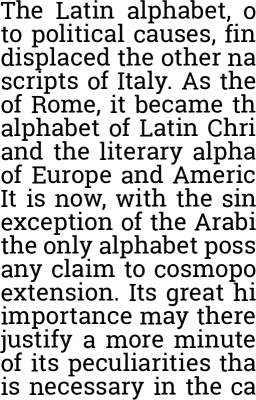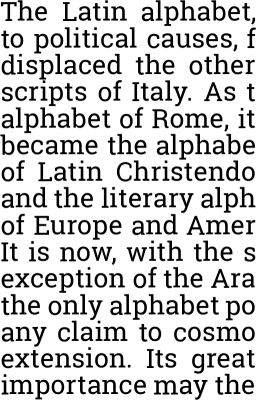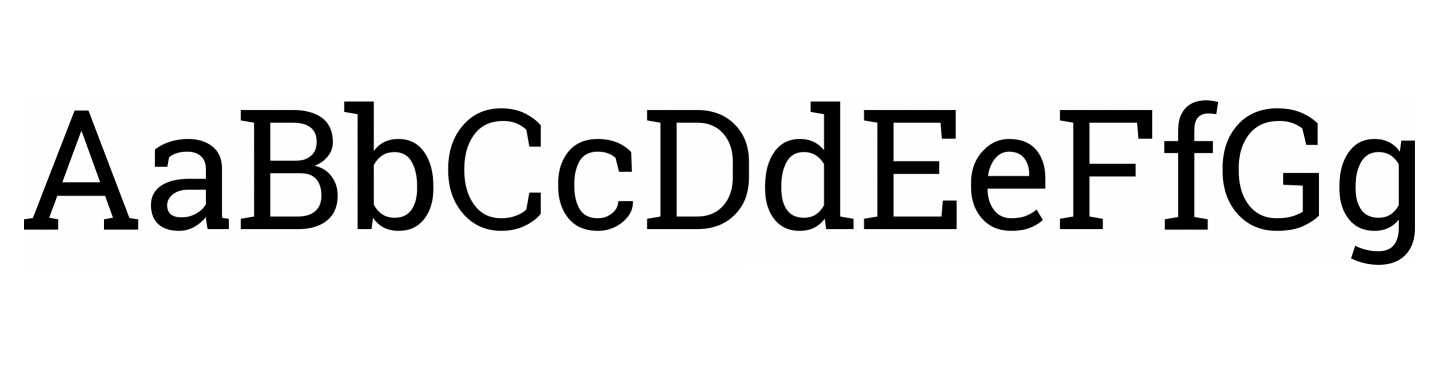
27+ Roboto Slab Serif Font Download SVG File. While some grotesks distort their letterforms to force a rigid rhythm, roboto doesn't compromise, allowing. It has a mechanical skeleton and the forms are largely geometric. You're free to use it with your adobe fonts account just as you would any other font in the adobe fonts to use this font on your website, use the following css: Styles and fonts must be in the same directory. In basic > sans serif. Otherwise you need to change the path to them. An example of using a font in styles At the same time, the font features friendly and open curv. It has a mechanical skeleton and the forms are largely geometric. Fontsfree.pro » basic web fonts » slab serif fonts » roboto slab. Roboto slab is available via an open source license. Download roboto slab font family · free for commercial use · includes roboto slab regular, thin, light, bold · roboto has a dual nature. 63 matching requests on the forum. At the same time, the font features friendly and open curves. Roboto has a dual nature.
Roboto Slab Font Free By Christian Robertson Font Squirrel. At the same time, the font features friendly and open curves. 63 matching requests on the forum. It has a mechanical skeleton and the forms are largely geometric. You're free to use it with your adobe fonts account just as you would any other font in the adobe fonts to use this font on your website, use the following css: Roboto slab is available via an open source license. In basic > sans serif. Fontsfree.pro » basic web fonts » slab serif fonts » roboto slab. Roboto has a dual nature. It has a mechanical skeleton and the forms are largely geometric. Otherwise you need to change the path to them. An example of using a font in styles Styles and fonts must be in the same directory. At the same time, the font features friendly and open curv. While some grotesks distort their letterforms to force a rigid rhythm, roboto doesn't compromise, allowing. Download roboto slab font family · free for commercial use · includes roboto slab regular, thin, light, bold · roboto has a dual nature.
Roboto has a dual nature. Roboto slab is a trademark of google. Instead, think of popular fonts like rockwell or roboto. Subsetting reduces the number of glyphs in the font to make a smaller file. It is serif font and has 4 styles. Roboto is the default font on the android mobile phone operating system. Google:roboto slab:2013 full font name: Descarga 10,000 fuentes con un clic por solo $ 19.95. Roboto was created in 2011 by christian robertson at google, and received a significant redesign in 2014. It has a mechanical skeleton and the forms are largely geometric. At the same time, the font features friendly and open curv. Styles and fonts must be in the same directory. The ultimate font download es la colección de fuentes más grande y más vendida en línea. Fontsc.com is formed in the spirit of for fonts, where creative ideas meet beautiful designs as we all know great designs last forever! Www.apache.org 555 views, 60 downloads share share share. Download and install the roboto slab regular font for free from ffonts.net. If you like this site and find it useful, help us to make it better by giving feedback, suggesting improvements or by donation. Free fonts » serif » » roboto slab regular download. ✔️ this font has been downloaded 3,000+ times. Otherwise you need to change the path to them. 63 matching requests on the forum. At the same time, the font features friendly and open curves. The font contains characters from the following unicode character. Roboto slab font is licensed under apache license and free for both personel and roboto slab font contains 880 defined characters and 658 unique glyphs. Uploaded by zemin (12 styles). What is the slab serif font classification? Roboto slab is available via an open source license. If the font supports a particular language, it will appear in the menu. It has a mechanical skeleton and the forms are largely geometric. In basic > sans serif. Free download of roboto font family with 16 styles.
Roboto Slab Font Family 1001 Fonts. It has a mechanical skeleton and the forms are largely geometric. Otherwise you need to change the path to them. Roboto slab is available via an open source license. Roboto has a dual nature. At the same time, the font features friendly and open curv. Download roboto slab font family · free for commercial use · includes roboto slab regular, thin, light, bold · roboto has a dual nature. While some grotesks distort their letterforms to force a rigid rhythm, roboto doesn't compromise, allowing. You're free to use it with your adobe fonts account just as you would any other font in the adobe fonts to use this font on your website, use the following css: It has a mechanical skeleton and the forms are largely geometric. At the same time, the font features friendly and open curves. In basic > sans serif. Styles and fonts must be in the same directory. An example of using a font in styles 63 matching requests on the forum. Fontsfree.pro » basic web fonts » slab serif fonts » roboto slab.
Roboto Slab Regular Free Font Download On Allfont Net. While some grotesks distort their letterforms to force a rigid rhythm, roboto doesn't compromise, allowing. Otherwise you need to change the path to them. Download roboto slab font family · free for commercial use · includes roboto slab regular, thin, light, bold · roboto has a dual nature. You're free to use it with your adobe fonts account just as you would any other font in the adobe fonts to use this font on your website, use the following css: Styles and fonts must be in the same directory. Roboto slab is available via an open source license. It has a mechanical skeleton and the forms are largely geometric. An example of using a font in styles It has a mechanical skeleton and the forms are largely geometric. Fontsfree.pro » basic web fonts » slab serif fonts » roboto slab. At the same time, the font features friendly and open curv. Roboto has a dual nature. 63 matching requests on the forum. At the same time, the font features friendly and open curves. In basic > sans serif.
Roboto Slab Google Fonts. An example of using a font in styles Fontsfree.pro » basic web fonts » slab serif fonts » roboto slab. It has a mechanical skeleton and the forms are largely geometric. It has a mechanical skeleton and the forms are largely geometric. You're free to use it with your adobe fonts account just as you would any other font in the adobe fonts to use this font on your website, use the following css: Roboto slab is available via an open source license. In basic > sans serif. Styles and fonts must be in the same directory. At the same time, the font features friendly and open curves. While some grotesks distort their letterforms to force a rigid rhythm, roboto doesn't compromise, allowing. At the same time, the font features friendly and open curv. 63 matching requests on the forum. Otherwise you need to change the path to them. Download roboto slab font family · free for commercial use · includes roboto slab regular, thin, light, bold · roboto has a dual nature. Roboto has a dual nature.
Roboto Slab Font Family Download Free For Desktop Webfont. You're free to use it with your adobe fonts account just as you would any other font in the adobe fonts to use this font on your website, use the following css: In basic > sans serif. Roboto has a dual nature. Styles and fonts must be in the same directory. Roboto slab is available via an open source license. Fontsfree.pro » basic web fonts » slab serif fonts » roboto slab. At the same time, the font features friendly and open curv. Otherwise you need to change the path to them. An example of using a font in styles At the same time, the font features friendly and open curves. It has a mechanical skeleton and the forms are largely geometric. 63 matching requests on the forum. It has a mechanical skeleton and the forms are largely geometric. While some grotesks distort their letterforms to force a rigid rhythm, roboto doesn't compromise, allowing. Download roboto slab font family · free for commercial use · includes roboto slab regular, thin, light, bold · roboto has a dual nature.
Download Free Roboto Slab Bold Font Dafontfree Net. An example of using a font in styles Styles and fonts must be in the same directory. Roboto slab is available via an open source license. In basic > sans serif. Roboto has a dual nature. You're free to use it with your adobe fonts account just as you would any other font in the adobe fonts to use this font on your website, use the following css: Download roboto slab font family · free for commercial use · includes roboto slab regular, thin, light, bold · roboto has a dual nature. Otherwise you need to change the path to them. 63 matching requests on the forum. It has a mechanical skeleton and the forms are largely geometric. At the same time, the font features friendly and open curv. At the same time, the font features friendly and open curves. It has a mechanical skeleton and the forms are largely geometric. Fontsfree.pro » basic web fonts » slab serif fonts » roboto slab. While some grotesks distort their letterforms to force a rigid rhythm, roboto doesn't compromise, allowing.
Instead, think of popular fonts like rockwell or roboto. It has a mechanical skeleton and the forms are largely geometric. What is the slab serif font classification? Roboto slab font subfamily identification: Roboto has a dual nature. If you like this site and find it useful, help us to make it better by giving feedback, suggesting improvements or by donation. It is serif font and has 4 styles. Report a violation add to list. At the same time, the font features friendly and open curv. Fontsfree.pro » basic web fonts » slab serif fonts » roboto slab.